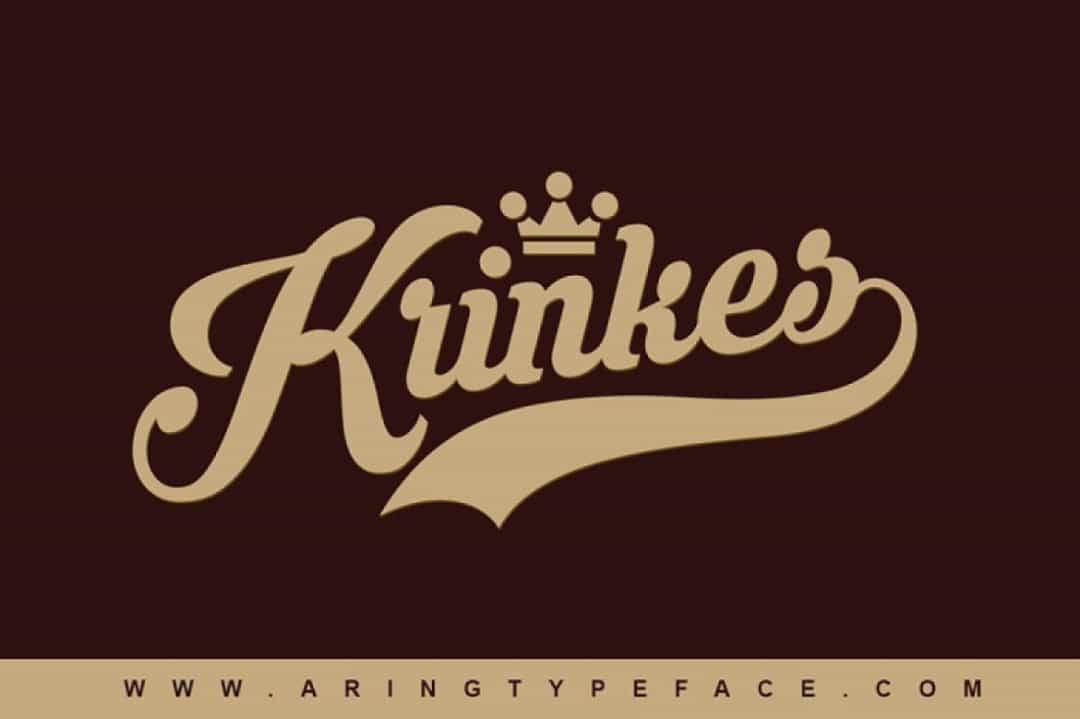
Launched by Mans Greback, this well polished script font is best suitable for multilingual uses and contains special characters. Are perfect design for logotypes slogans and tittles! Design beautiful posters or affiches, logos, T-shirt prints which generates most of our sales, magazine editions on typographic designs with convenience and at a low cost using Printify!